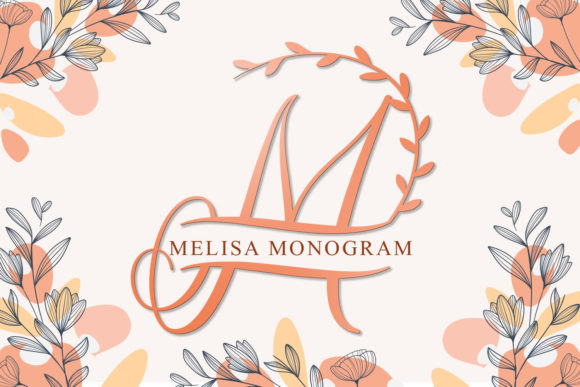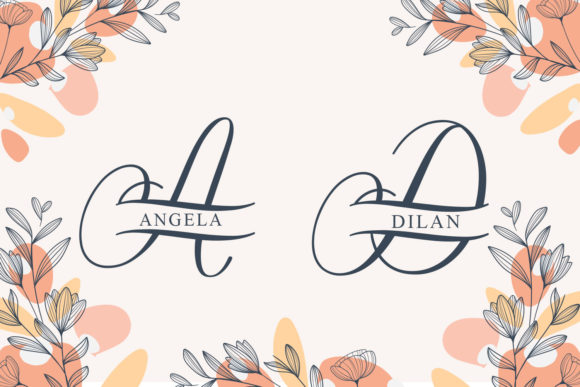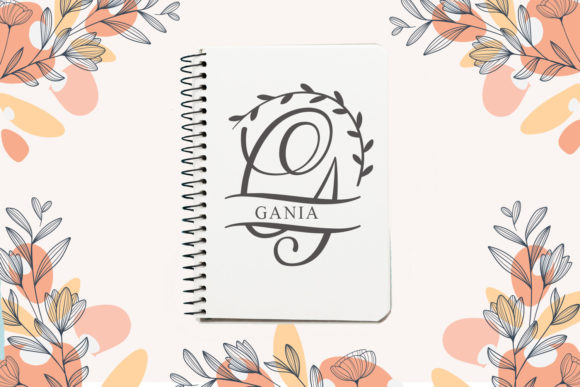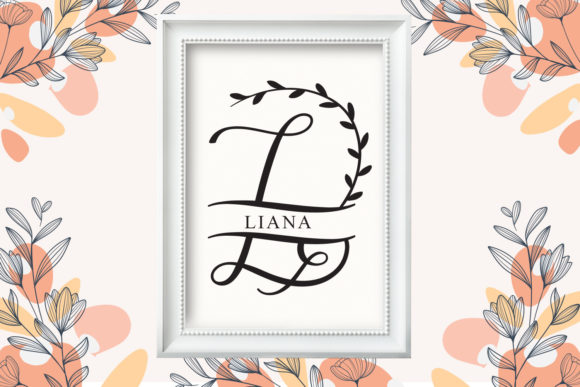
Melisa Monogram Font Font
About the Melisa Monogram Font Font
Get ready to be inspired by Melisa Monogram Font Font, a fresh and dynamic typeface for modern creators. Melisa Monogram is a dainty and unique decorative font. Add this romantic and lovely looking font to each of your love letters, wedding invitations or favorite design ideas, and you will be astounded by the outcome.
Melisa Monogram’s delicate nature makes it ideal for short text applications such as logos, wedding stationery, or short headlines. Its decorative style shines in branding projects requiring a touch of romance or elegance, and it works particularly well on packaging for luxury goods or artisan products. However, its intricate details make it unsuitable for body text or UI elements where readability is paramount. Avoid using it in large blocks of text or for applications demanding high legibility.
The font’s inherent romanticism pairs beautifully with a classic serif like Garamond for a timeless feel, or a clean, geometric sans-serif like Montserrat for a modern contrast. For a more playful approach, consider pairing it with a flowing script font, but ensure the script is legible enough to not compete with Melisa Monogram’s decorative elements.
Melisa Monogram possesses a distinctly romantic and elegant personality. Its refined details suggest sophistication and charm, making it a perfect choice for brands targeting a feminine or luxury-oriented audience.